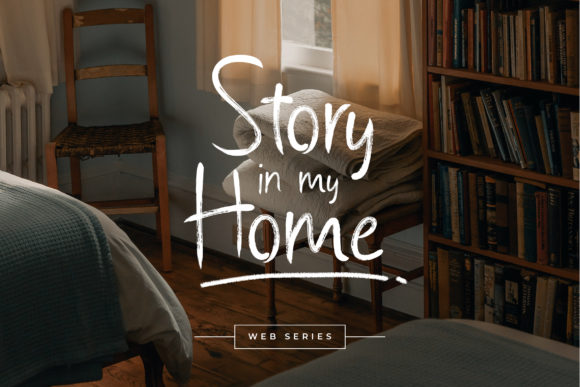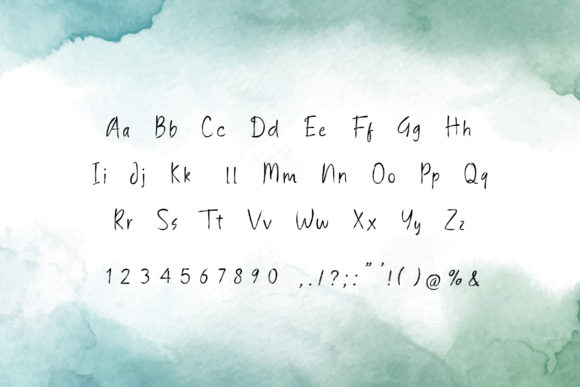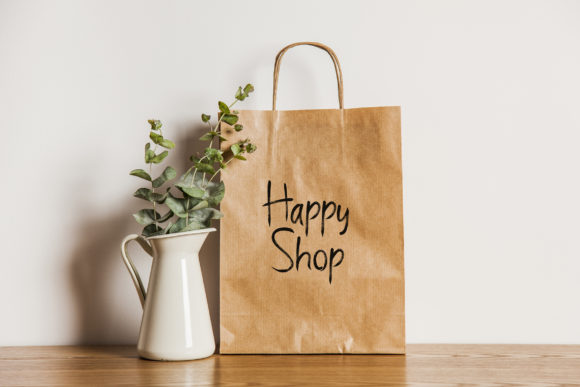
Caroline Quinn Font
About Caroline Quinn Font
Caroline Quinn is a stylish and neat brushed handwritten font. It is characterized by a cool touch and is perfect for fashion branding or editorial designs. Add it confidently to your projects, and you will love the results.